Fonts play a crucial role in shaping design identity. In 2025, font trends highlight readability, accessibility, and clean aesthetics across web and print. Here are 10 real and trending fonts widely used by designers worldwide — all free and available from trusted sources like Google Fonts.
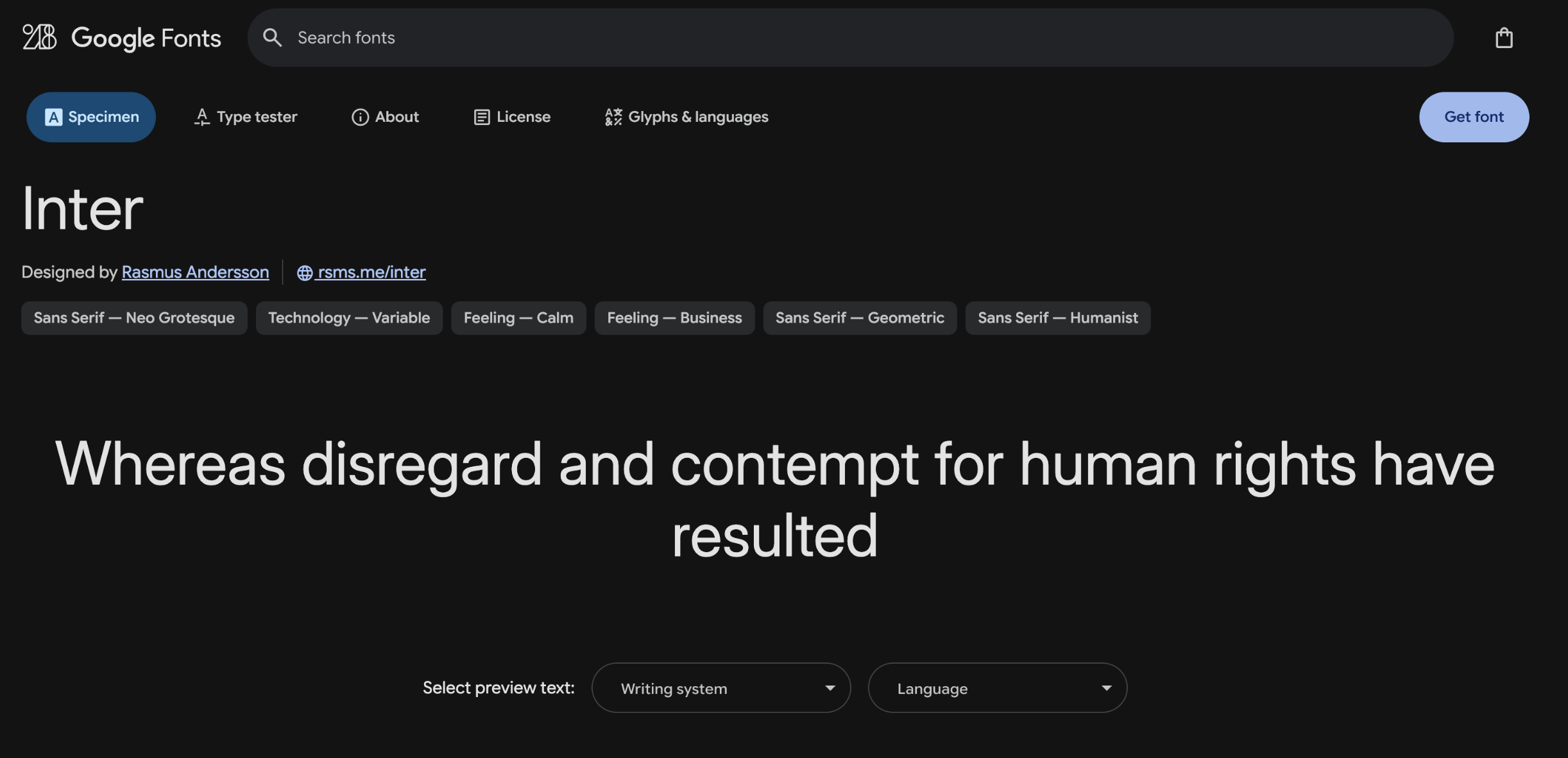
A modern sans-serif font by Rasmus Andersson, optimized for digital screens. With high x-height and variable support, Inter is a top choice for UI/UX tools like Figma and Notion.
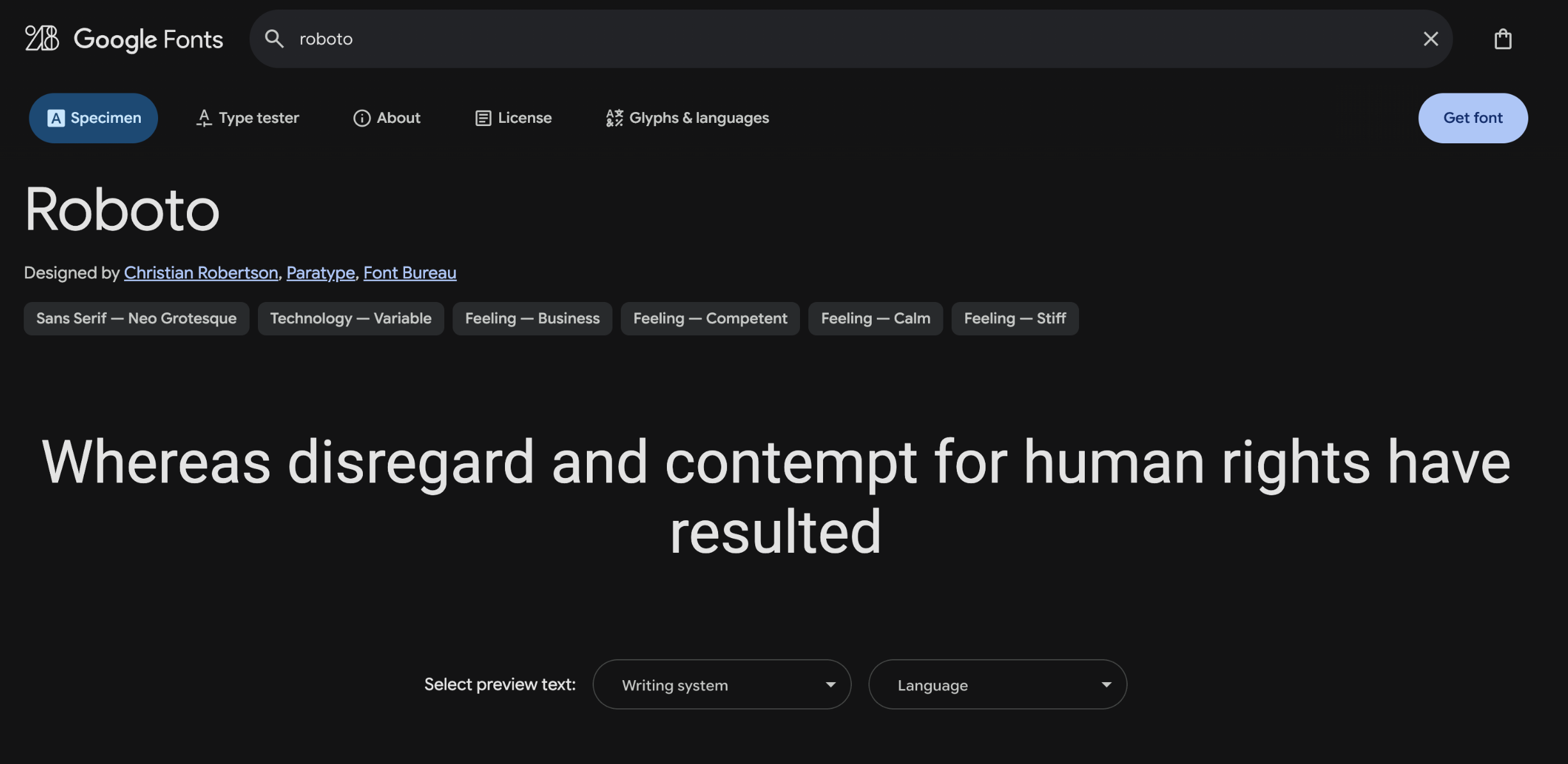
Developed by Google, Roboto is a geometric yet friendly sans-serif font. Its versatility makes it perfect for mobile apps, websites, and even print media.
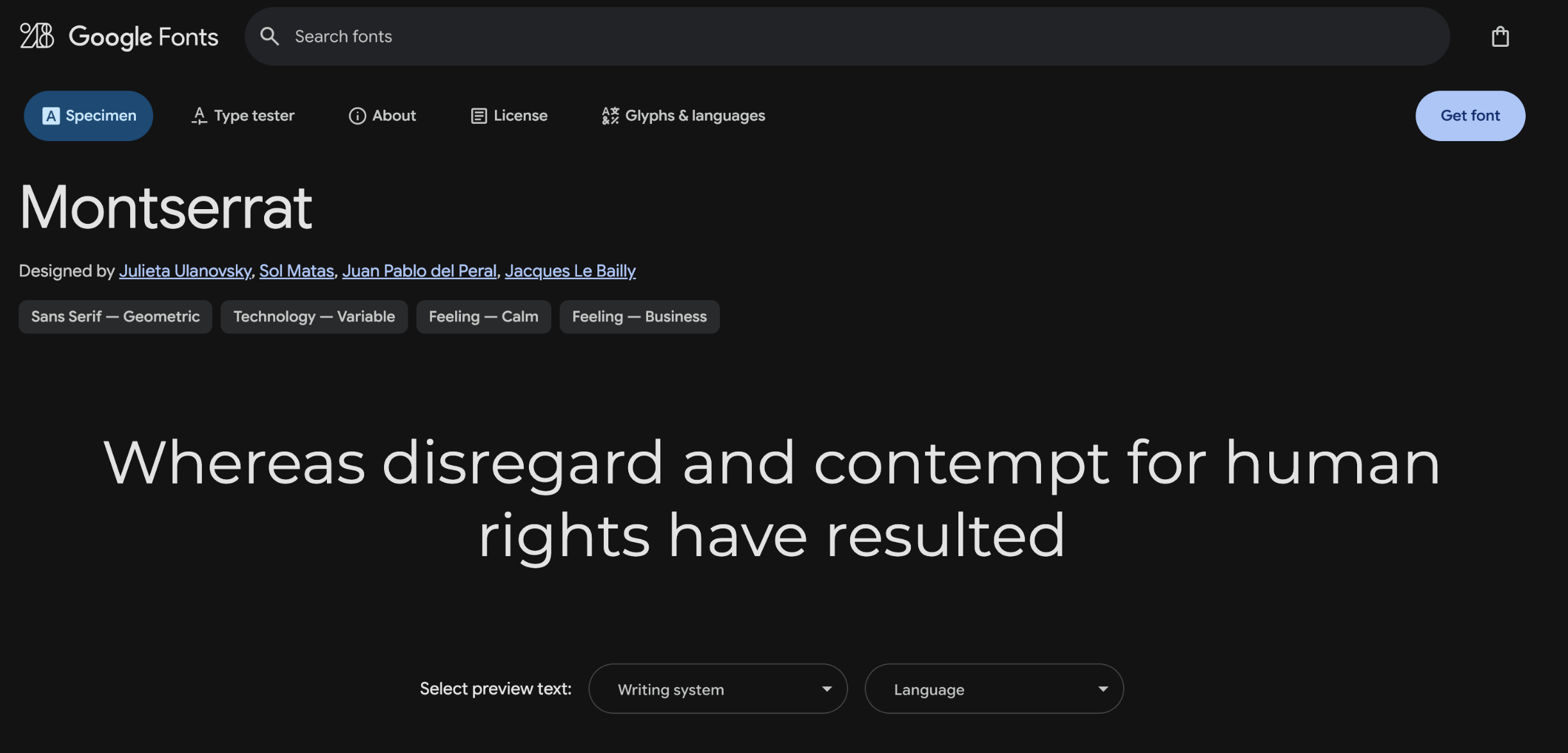
Inspired by old signage in Buenos Aires, this geometric sans-serif by Julieta Ulanovsky is sleek, modern, and excellent for branding and bold headlines.
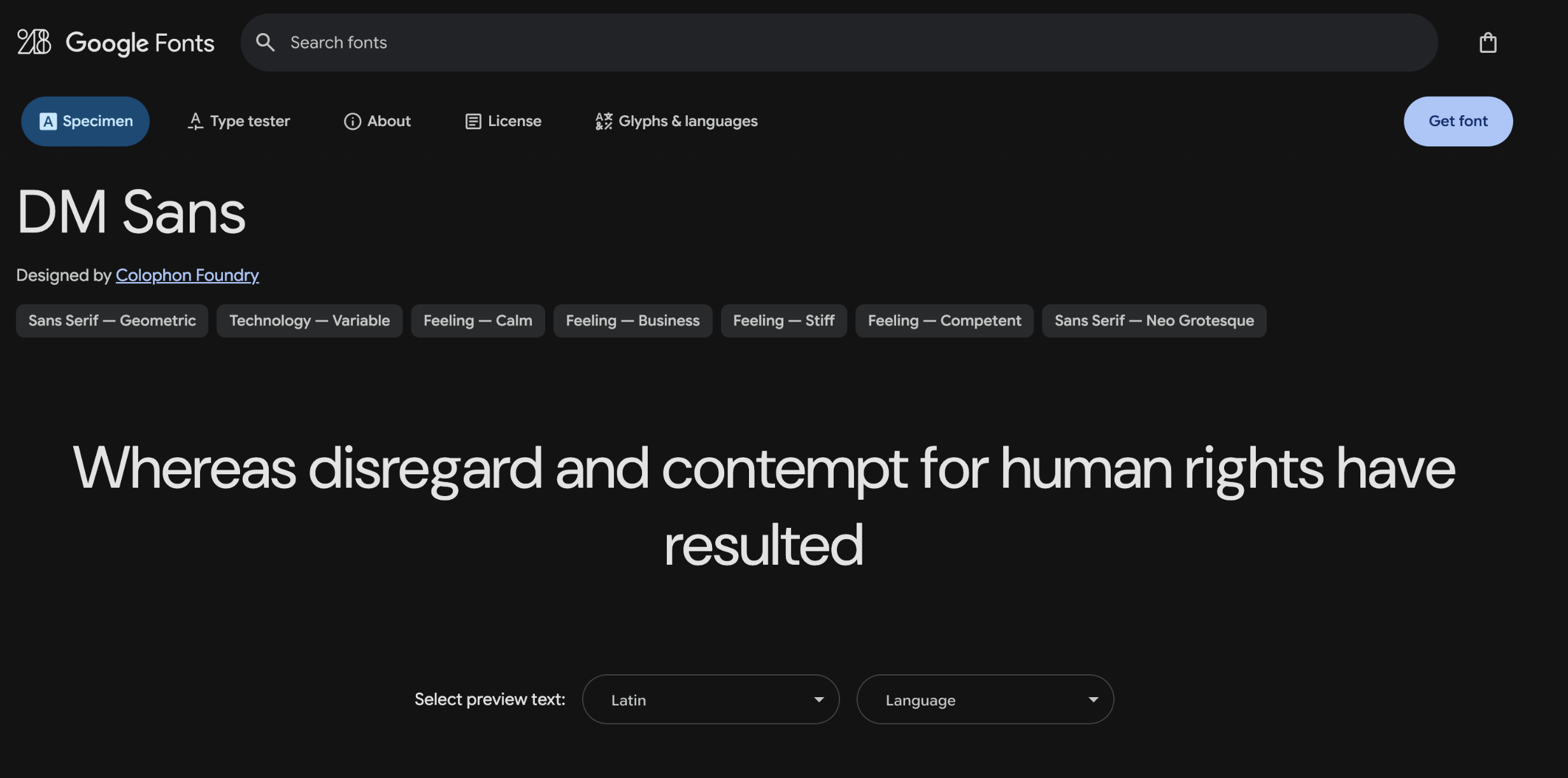
A clean, neutral sans-serif font designed for simplicity and readability. DM Sans works beautifully in both editorial layouts and minimalist web interfaces.
Originally designed for Mozilla Firefox OS, Fira Sans offers excellent readability and includes a monospaced version. Ideal for developers and tech design.
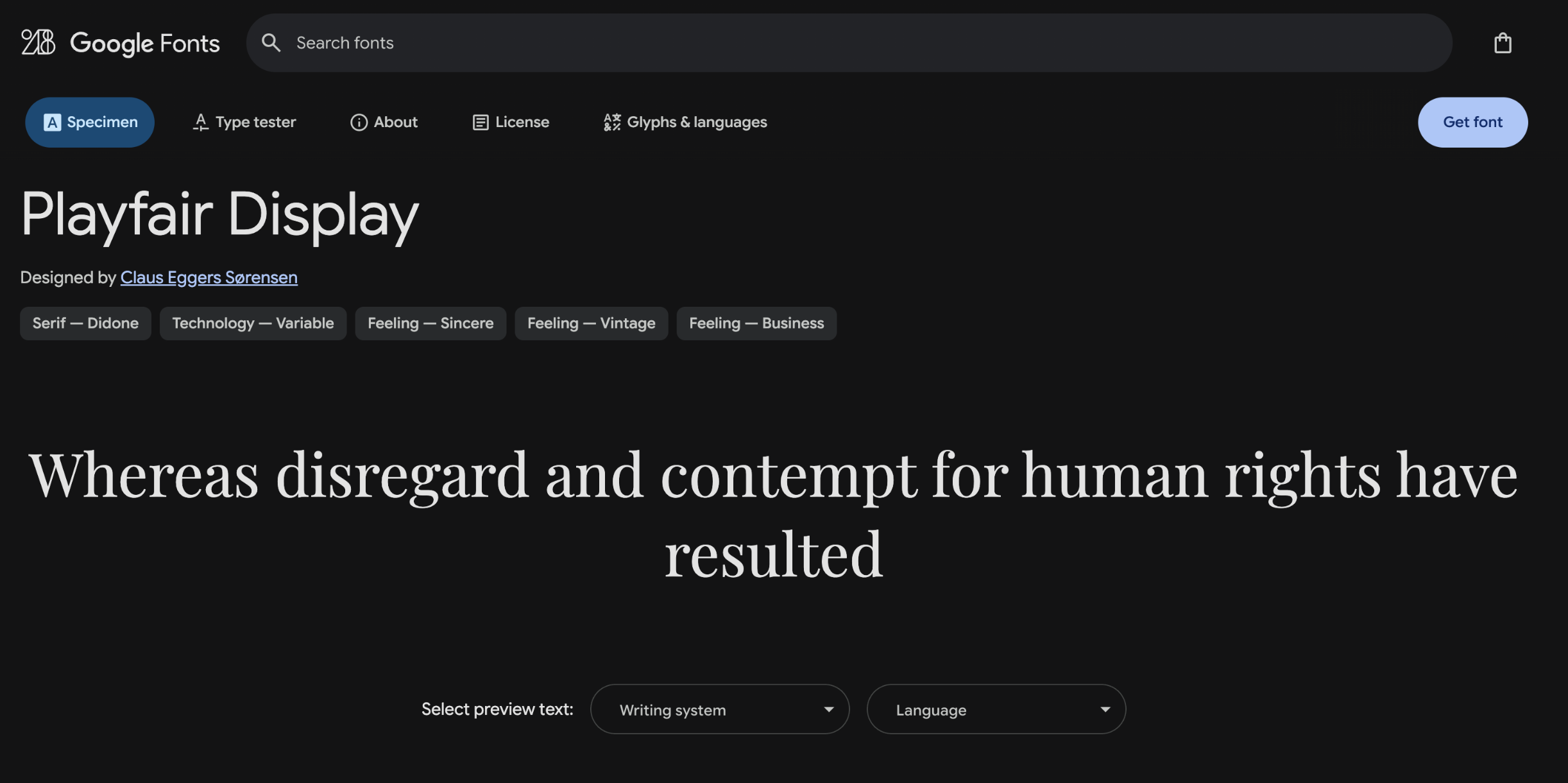
A high-contrast serif font perfect for titles and editorial content. Its classy look suits magazines, fashion brands, and stylish web pages.
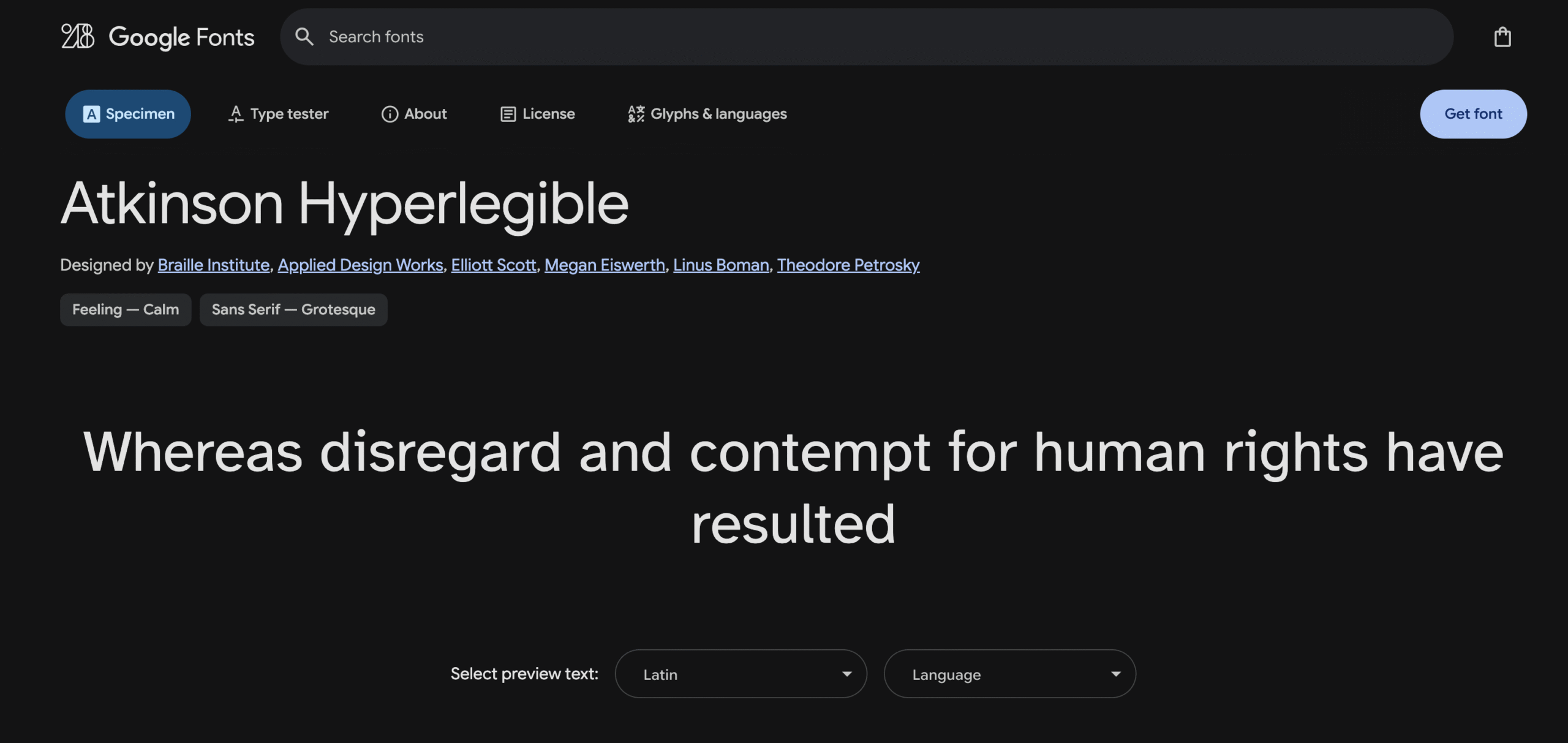
Created by the Braille Institute, this font is designed for maximum legibility, especially for people with visual impairments. It’s both functional and inclusive.
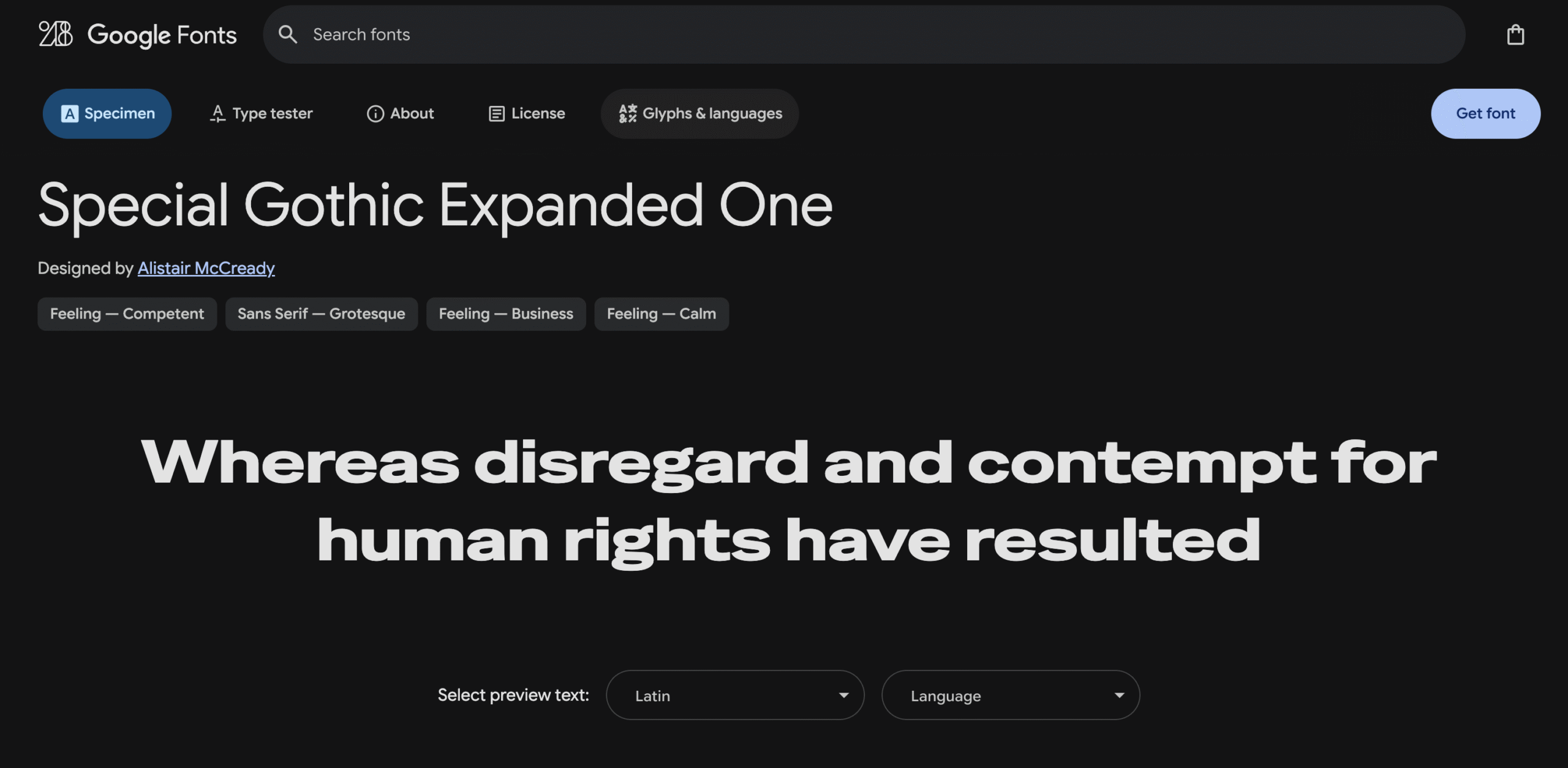
A bold, condensed display font with striking presence. Ideal for headlines that demand attention in posters, covers, or landing pages.
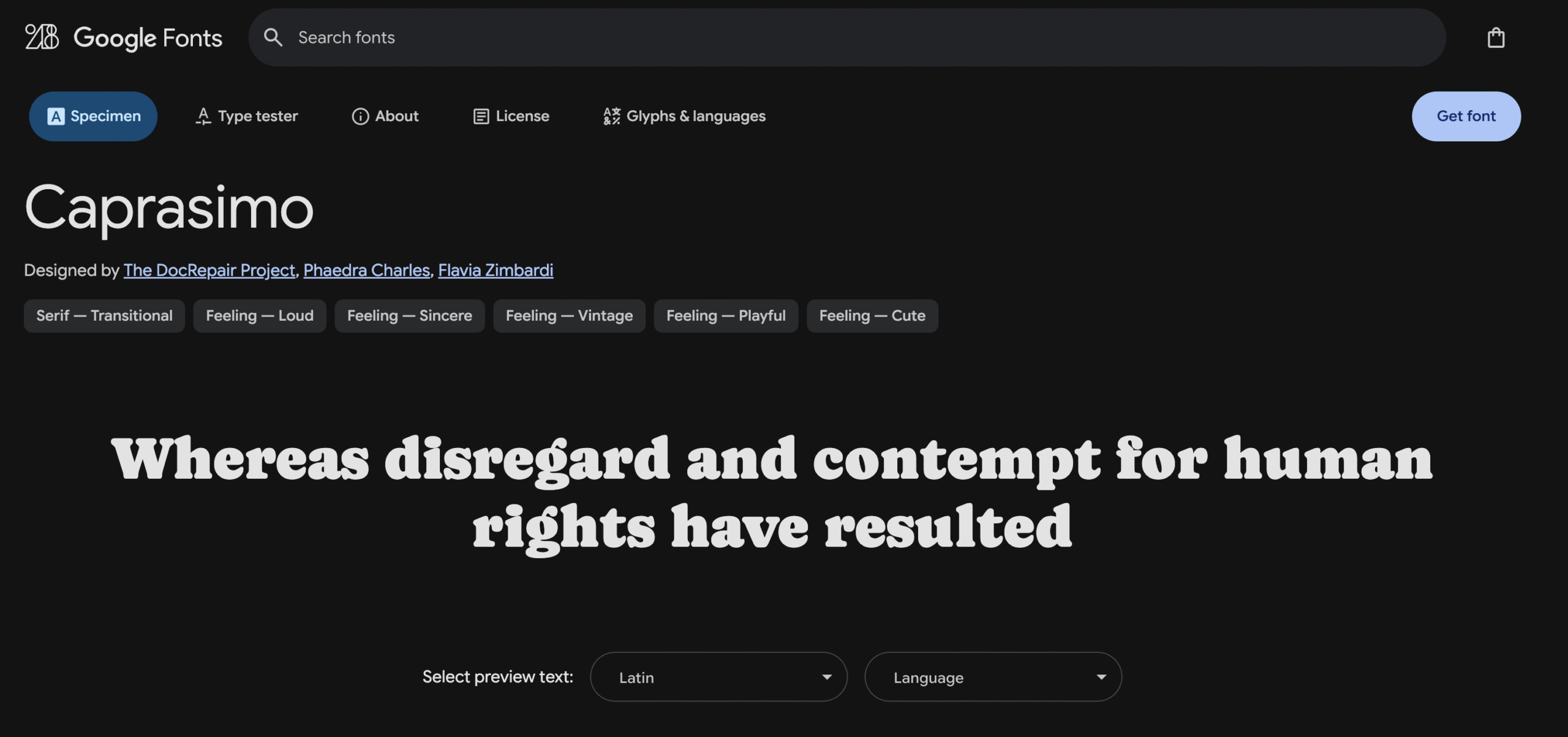
A fun and retro font with a bouncy baseline and friendly tone. Caprasimo is a perfect match for playful designs and creative branding.
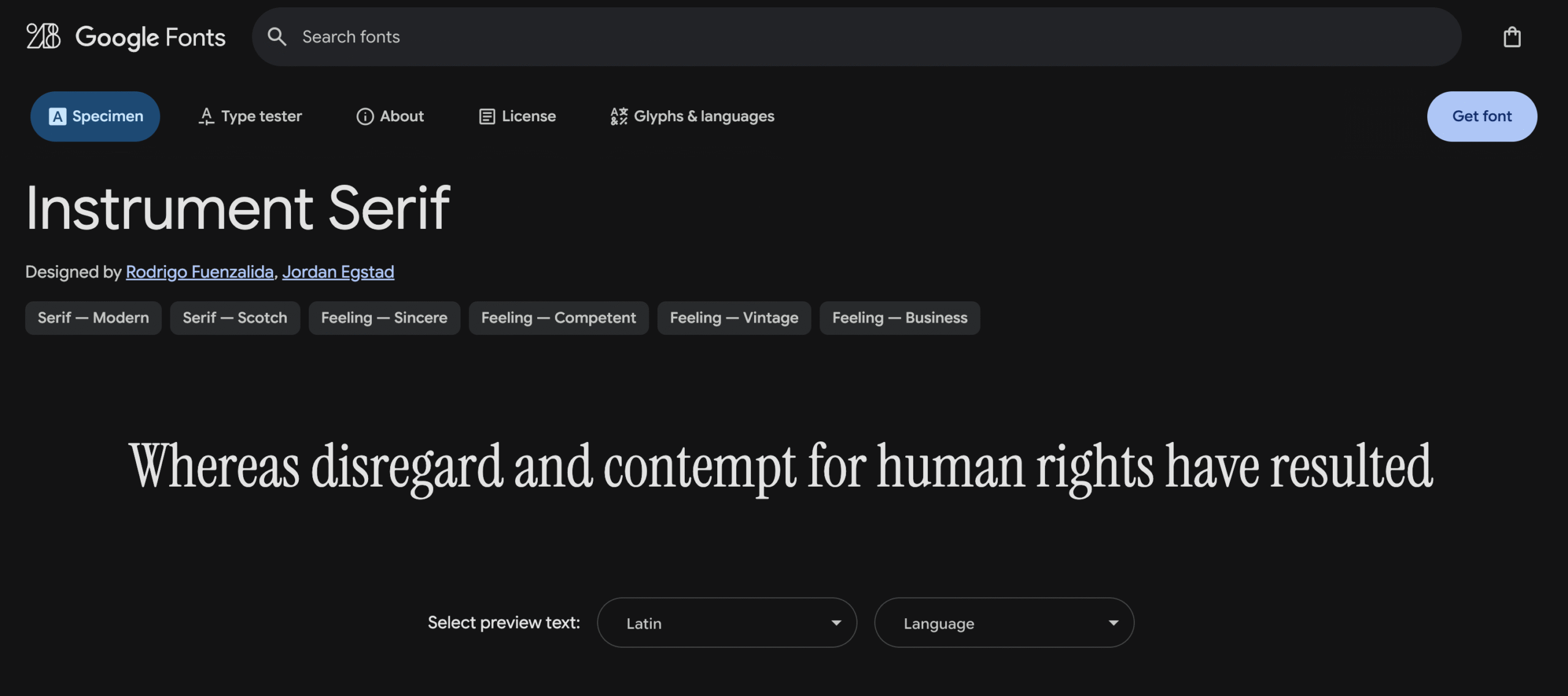
A minimalist serif font combining elegance and modernism. Great for refined text content, portfolios, or luxury product presentations.
Blunder display font makes it suitable for projects with semi-vintage, vintage and retro nuances.
Whether you’re designing an app, building a portfolio, or launching a product, choosing the right font is key to visual impact. The fonts listed above are not only trending but practical — combining style with readability, flexibility, and strong brand presence.
Explore, mix, and match — and let your typography speak with confidence in 2025.
Google Fonts is one of the largest and most trusted platforms for free fonts. All fonts here are open-source and can be used freely in any project.
Recommended fonts from Google Fonts:
Font Squirrel curates only fonts that are free for commercial use. Each font page includes clear license information.
Recommended fonts:
While DaFont offers many fonts with personal use licenses only, it also has a “100% Free” category. Be sure to check the license before use.
Popular free fonts:
A great resource for designers looking for open-source, high-quality fonts with unique personalities.
Top picks:
Kangfont.com offers a curated collection of free and premium fonts, especially helpful for Indonesian designers looking for local script support. Several fonts are free for both personal and commercial use.
Free fonts on KangFont:
Typography defines the personality of a design. Fortunately, you don’t need a big budget to access high-quality fonts. With platforms like Google Fonts, Font Squirrel, and KangFont, designers can find free, stylish, and legal fonts for any project.